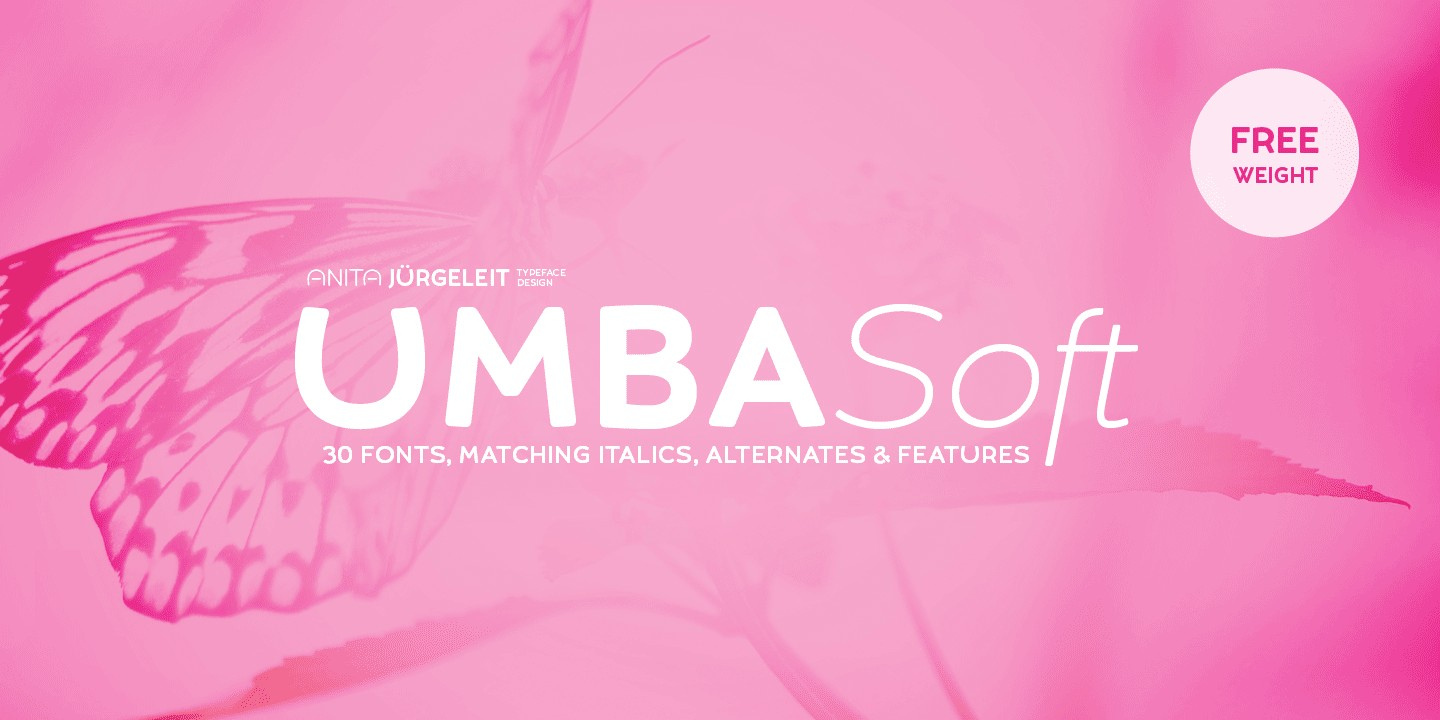
Umba Soft Font
Umba Soft Font is perfectly suited for children's book designs, gentle brand identities, baby product packaging, cozy café signage, comfort food branding, nurturing healthcare materials, soft lifestyle products, friendly app interfaces, and warm family-oriented marketing campaigns.
What makes Umba Soft Font so exciting is its exceptional warmth and approachable gentleness that creates an instant sense of comfort, safety, and friendly connection in every carefully rounded letterform. This delightful typeface embodies the essence of softness and care with its smooth curves and tender character shapes that feel like a gentle embrace, evoking feelings of security and well-being. The font's comforting proportions and inviting design create an atmosphere of kindness and accessibility that resonates with audiences seeking comfort, nurturing experiences, and genuine human connection. Umba Soft Font stands out through its ability to convey warmth, comfort, and approachable friendliness, making it perfect for projects that need to establish trust and emotional connection while creating welcoming experiences that make people feel safe, cared for, and valued.
The Umba Soft Font family includes Light, Regular, Medium, and Bold weights, each maintaining the font's distinctive soft character while providing design flexibility for various comforting applications. The family also features rounded alternates and gentle design elements that enhance the font's nurturing appeal and provide comprehensive solutions for warm, family-friendly design projects.
The technical craftsmanship of Umba Soft Font includes a comprehensive character set with uppercase and lowercase letters, numerals, punctuation marks, and caring symbols that maintain the font's gentle character. The font has been carefully optimized for both digital and print applications, ensuring consistent performance while preserving the soft, comforting details that give it its distinctive nurturing character and approachable appeal.
Whether you're designing childcare materials, creating comfort brand identities, developing family-friendly applications, or crafting designs that need to convey warmth and gentle care, Umba Soft Font delivers the perfect combination of comforting authenticity and contemporary functionality that makes your projects emotionally welcoming and reassuring for audiences seeking genuine comfort and nurturing experiences in their lives.